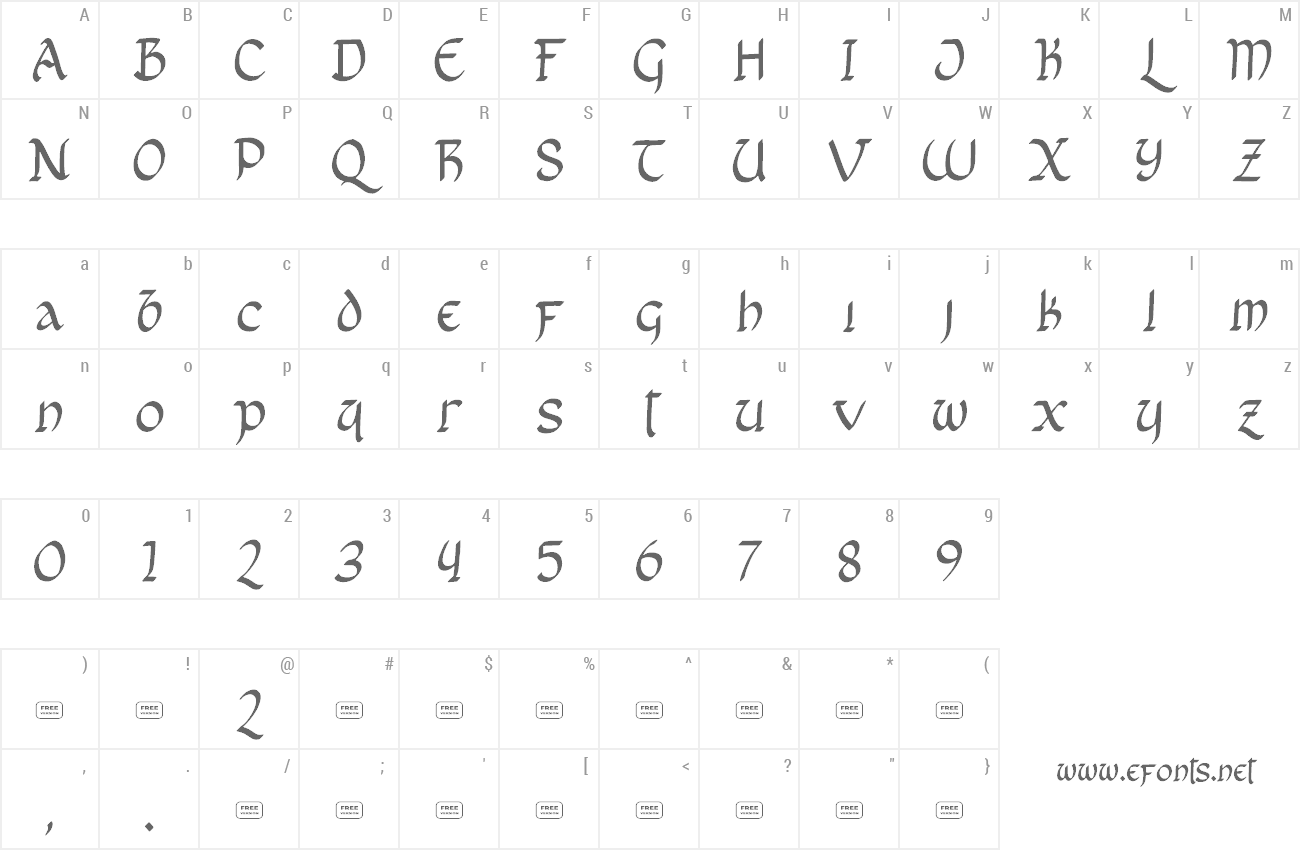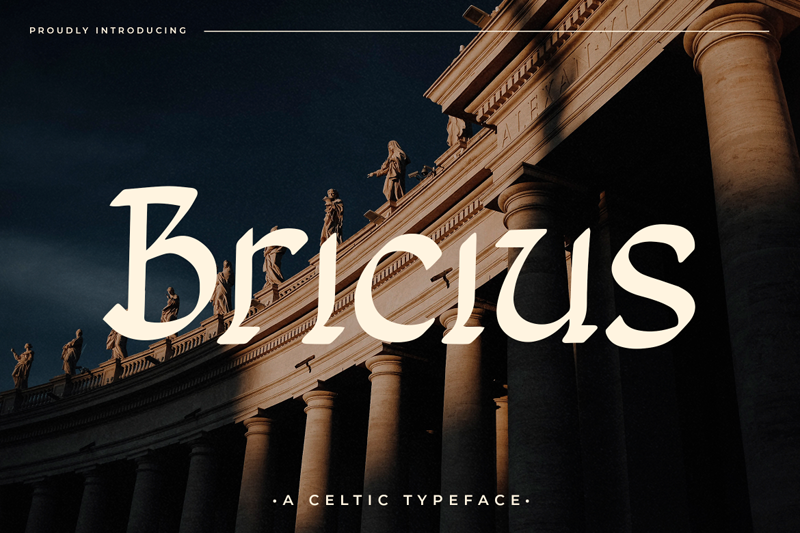
| Font name: | Bricius |
| Categories | Gothic, Celtic |
| Author: | Type Factory |
Bricius is a celtic style display font combined with a modern design, this font is modern, elegant and looks aesthetic. This unique display typeface is inspired by celtic styles. Use it for any design project that requires a personalized appearance! Full Version Download Here : https://typefactory.co/product/bricius-display-celtic-typeface/ https://www.creativefabrica.com/product/bricius/ref/501262/ |